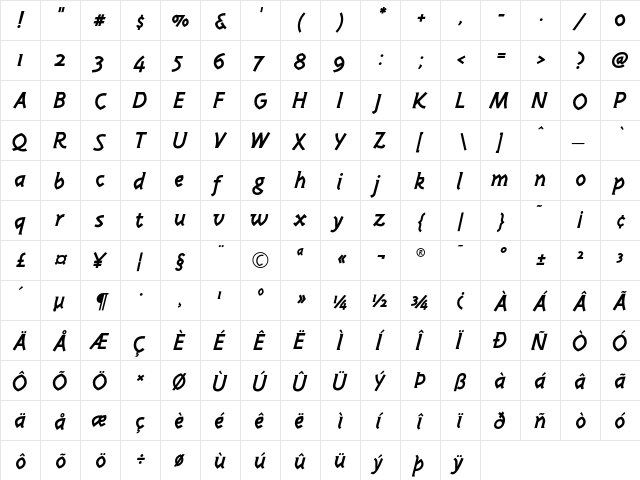
Karmen Italic
Design Context for Karmen Typeface
Karmen takes a measured approach to typography — its balanced proportions and neutral character make it a reliable workhorse for both digital and print work. The dynamic lean of this cut emphasises speed and emphasis in any layout.